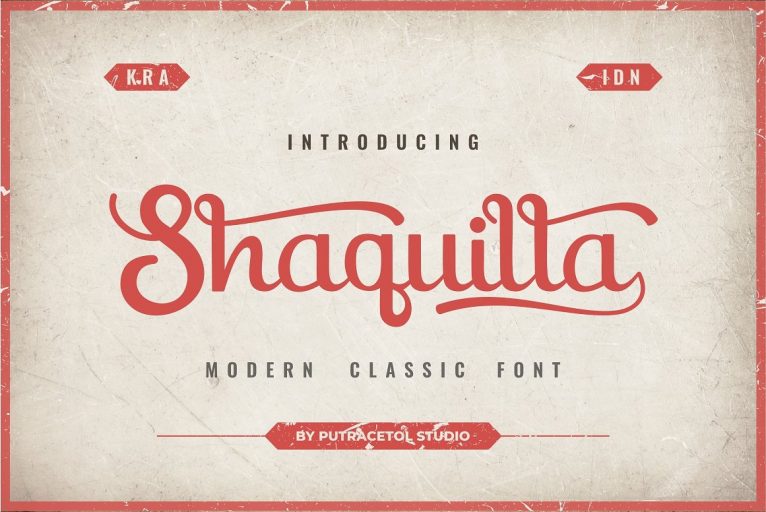
Shaquilla Script Font
Hi designer! The best free font package today is a contemporary modern classic script font. Introducing Shaquilla Font! Shaquilla designed by  PutraCetol Studio. Shaquilla is a Modern Classic Style font. It contains a full set of lower & uppercase letters, punctuation, numerals, and multilingual support. inspire you from your work.Ideal for logos, handwritten quotes, product packaging, tittle header, poster, merchandise, social media, labels, branding & greeting cards.